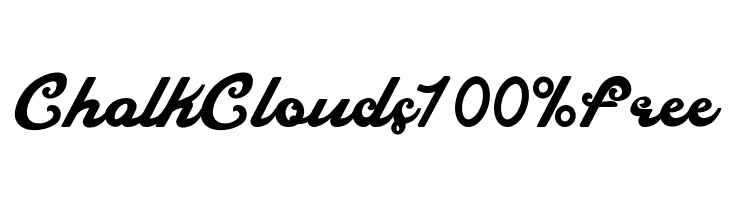
A playful, decorative font with curly uppercase and smooth script-like lowercase letters.
A playful, italic font with smooth, rounded strokes and a chalk-like appearance.